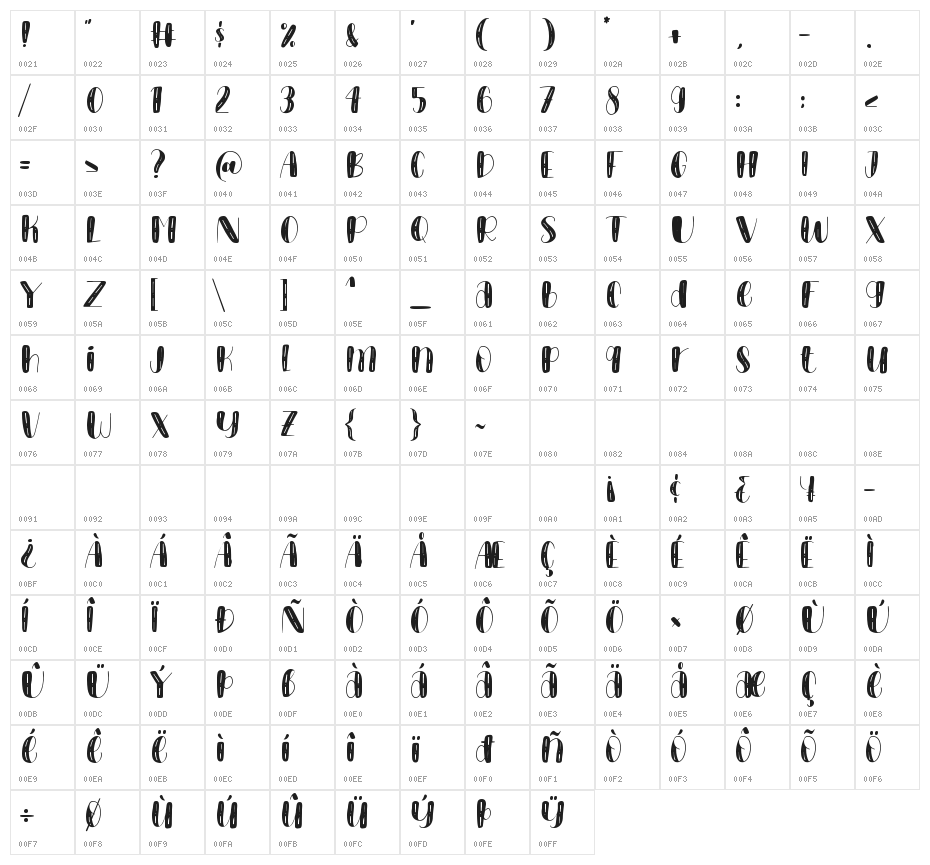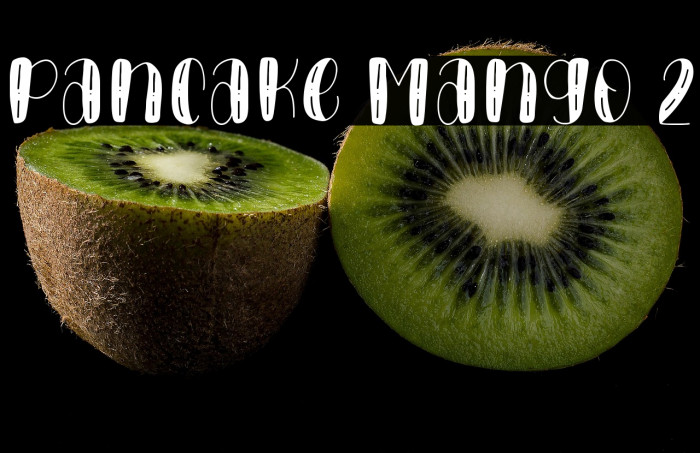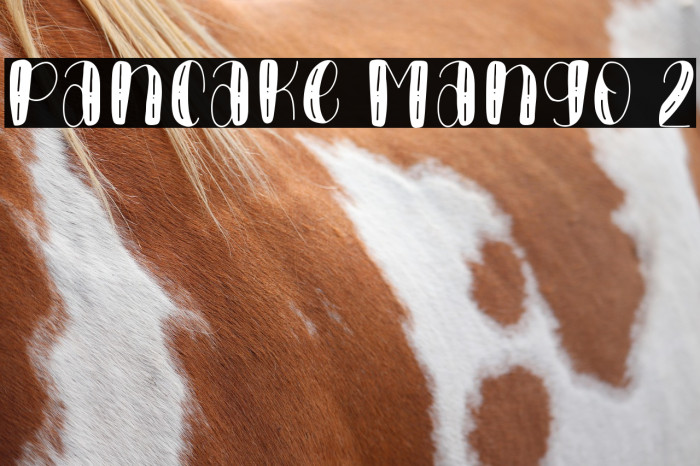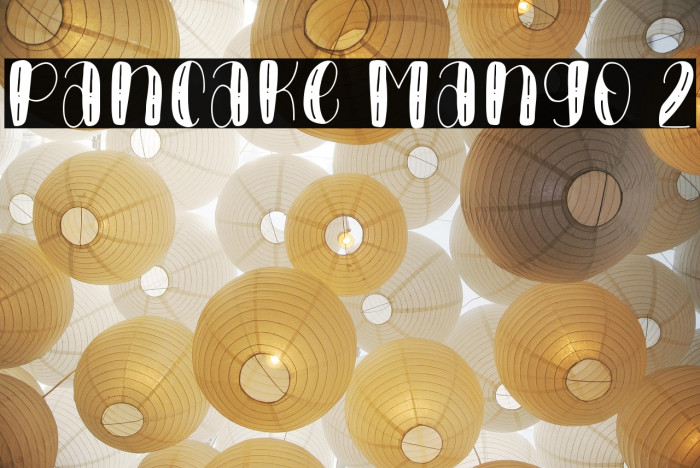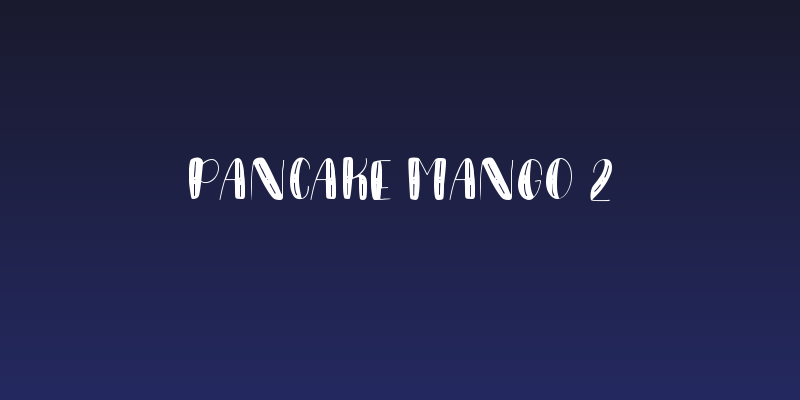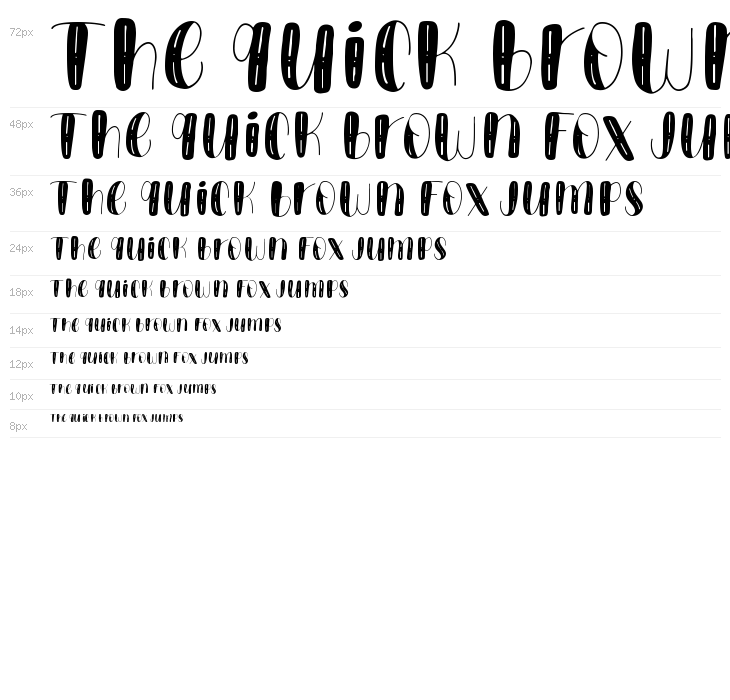
Pancake Mango 2 Font
Pancake Mango 2 Description
This font features a playful and whimsical design, characterized by its bold, rounded letterforms with a slight slant. The strokes are thick and consistent, giving it a strong presence. The letters have a unique, hand-drawn quality with subtle variations in line thickness, adding to its charm. The uppercase and lowercase letters maintain a cohesive style, while the numerals and special characters complement the overall aesthetic. This font's distinctive style makes it ideal for creative and informal applications.
| Proposed Projects | Ideal for children's books, greeting cards, playful branding, and creative posters. |